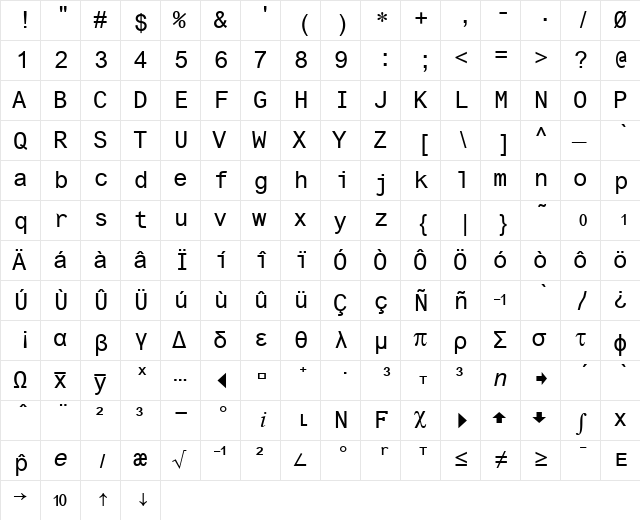
Ti83pc Regular
Design Context for Ti83pc Typeface
Ti83pc takes a measured approach to typography — its balanced proportions and neutral character make it a reliable workhorse for both digital and print work.